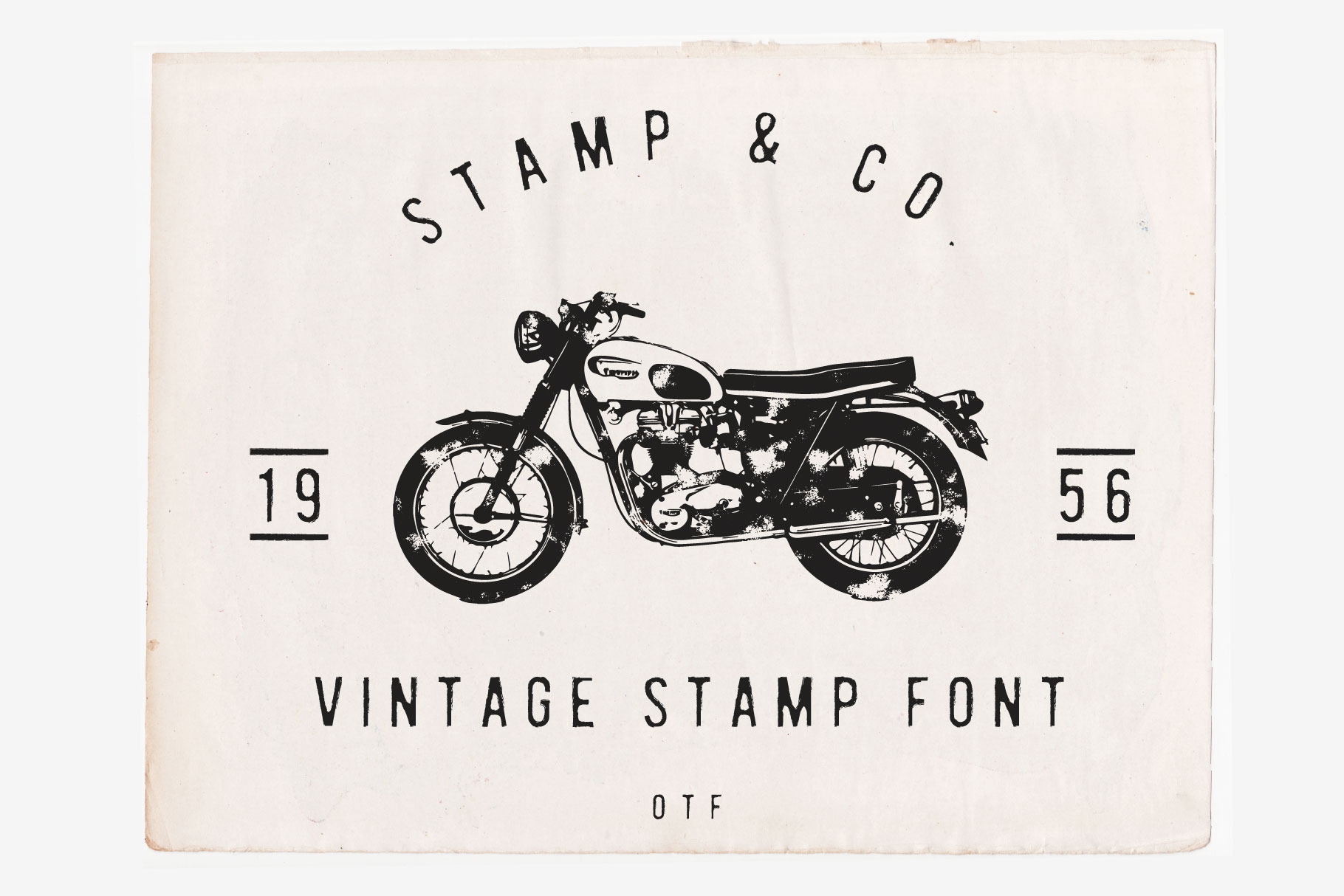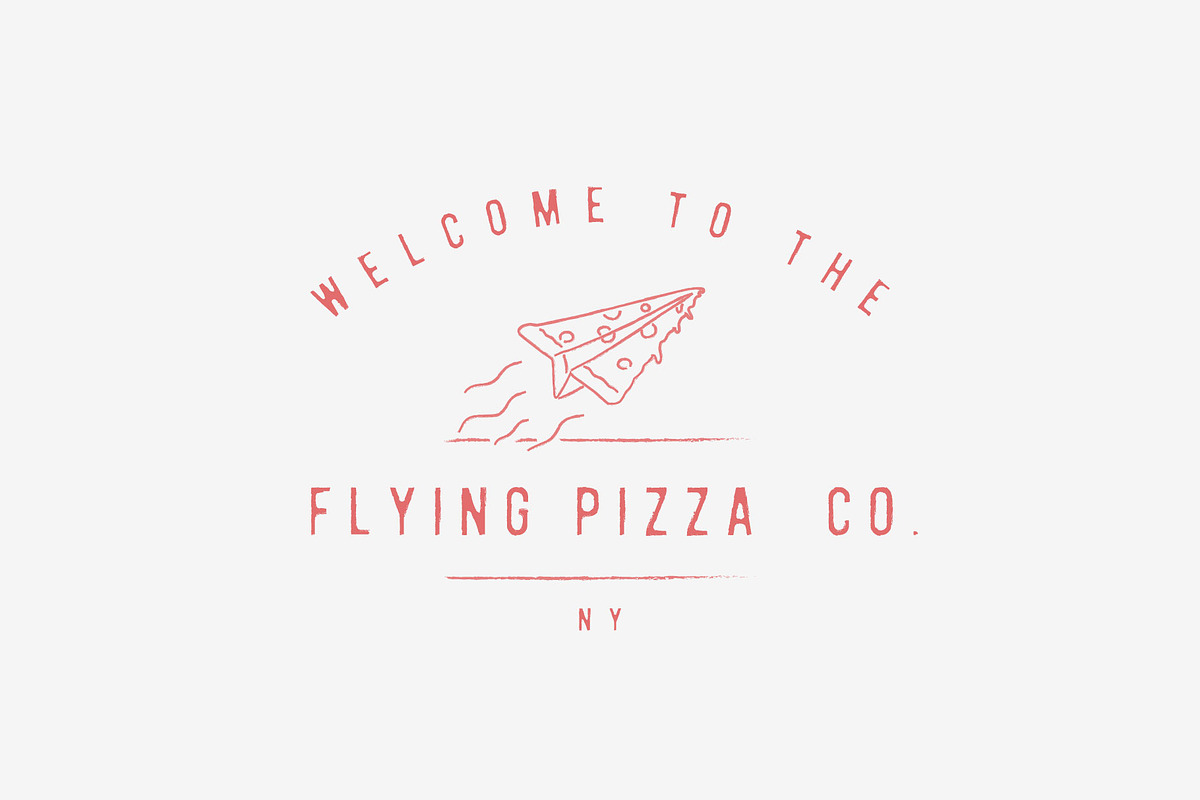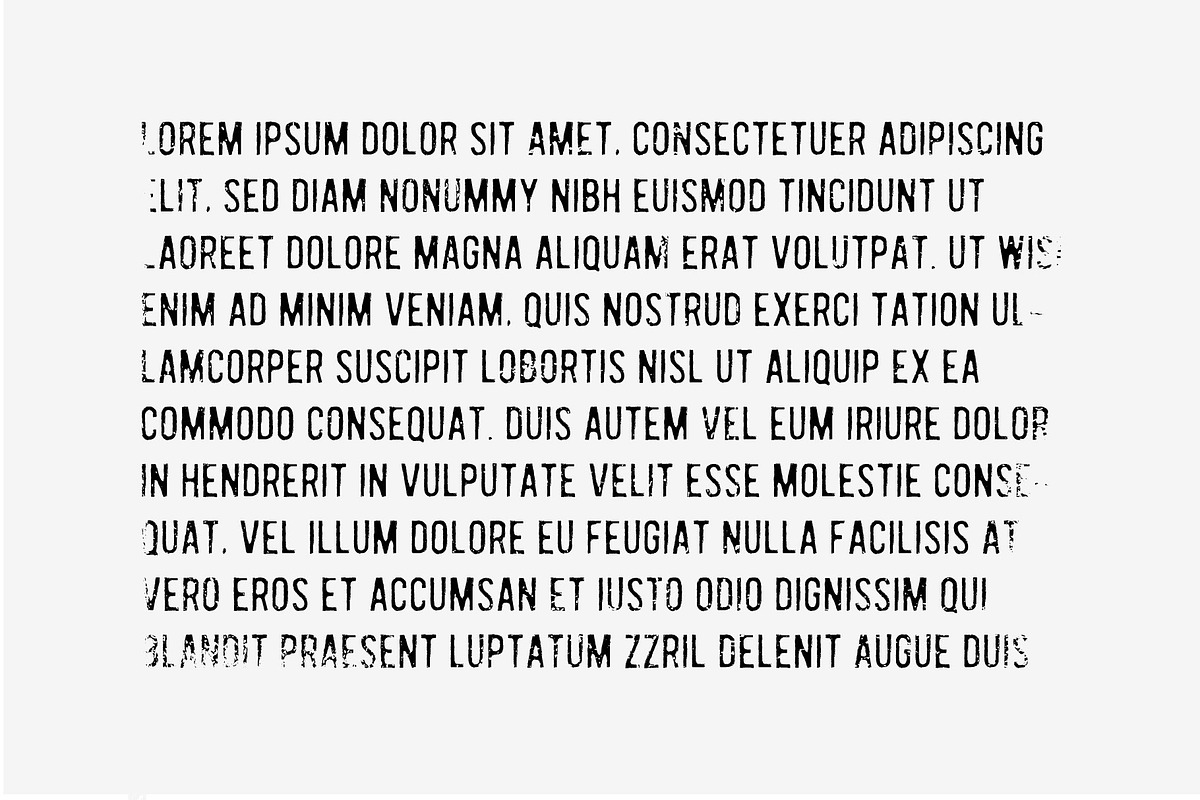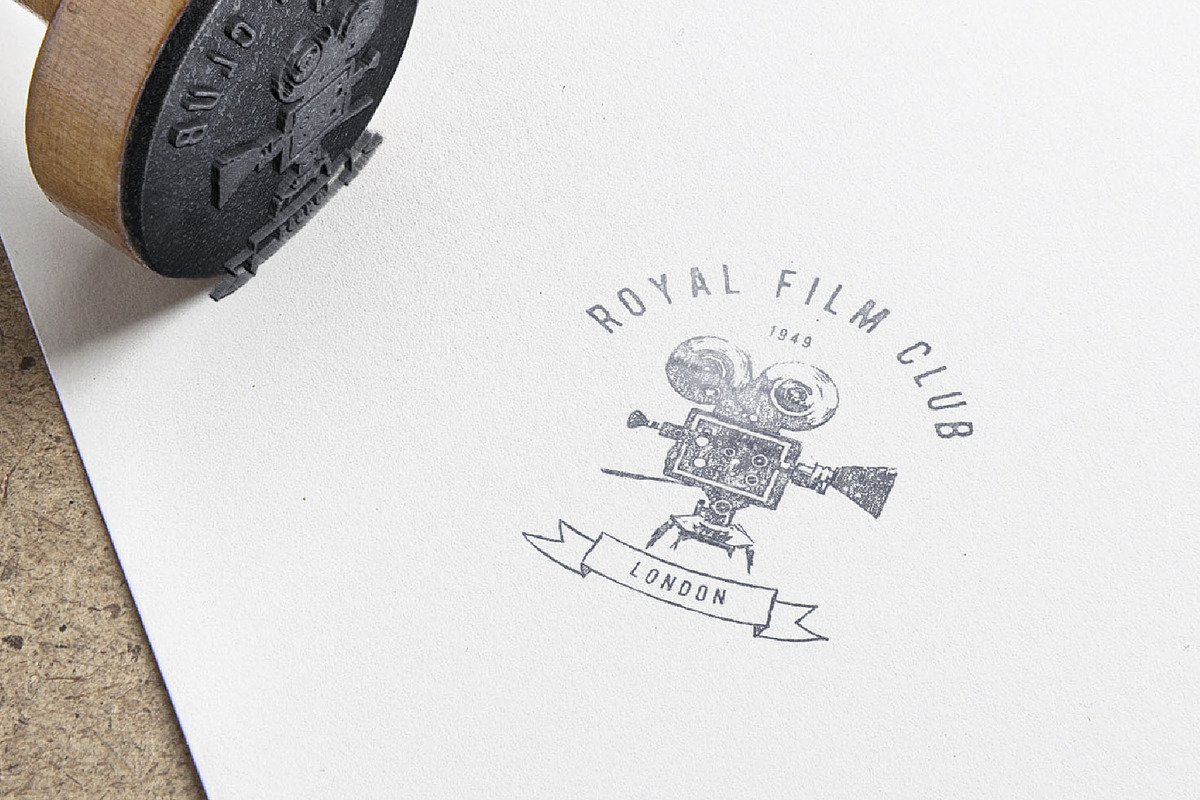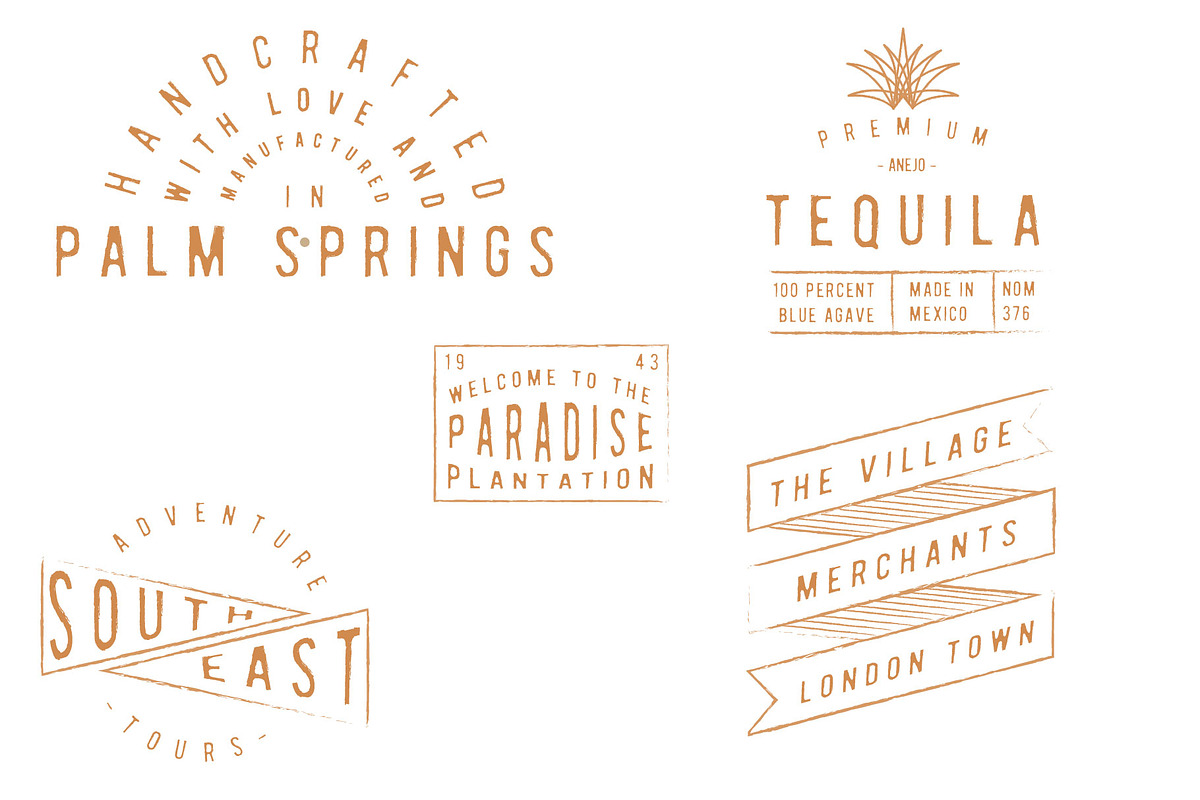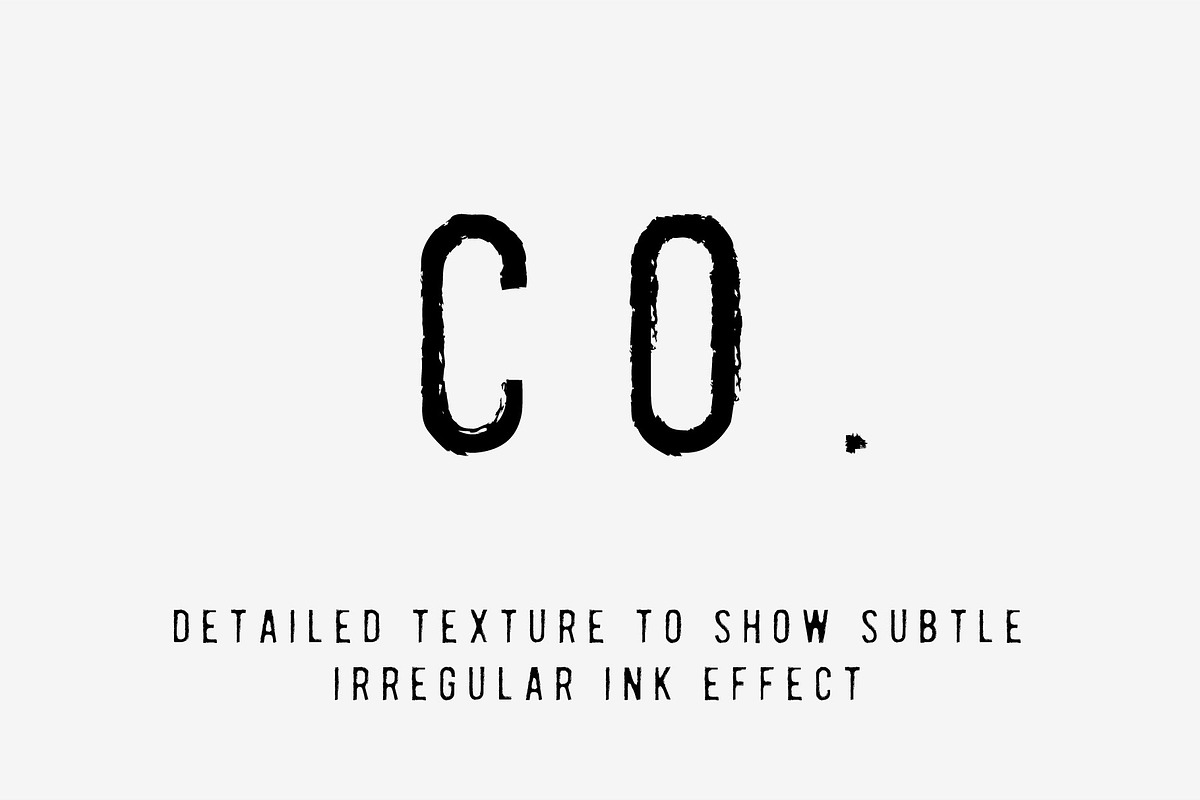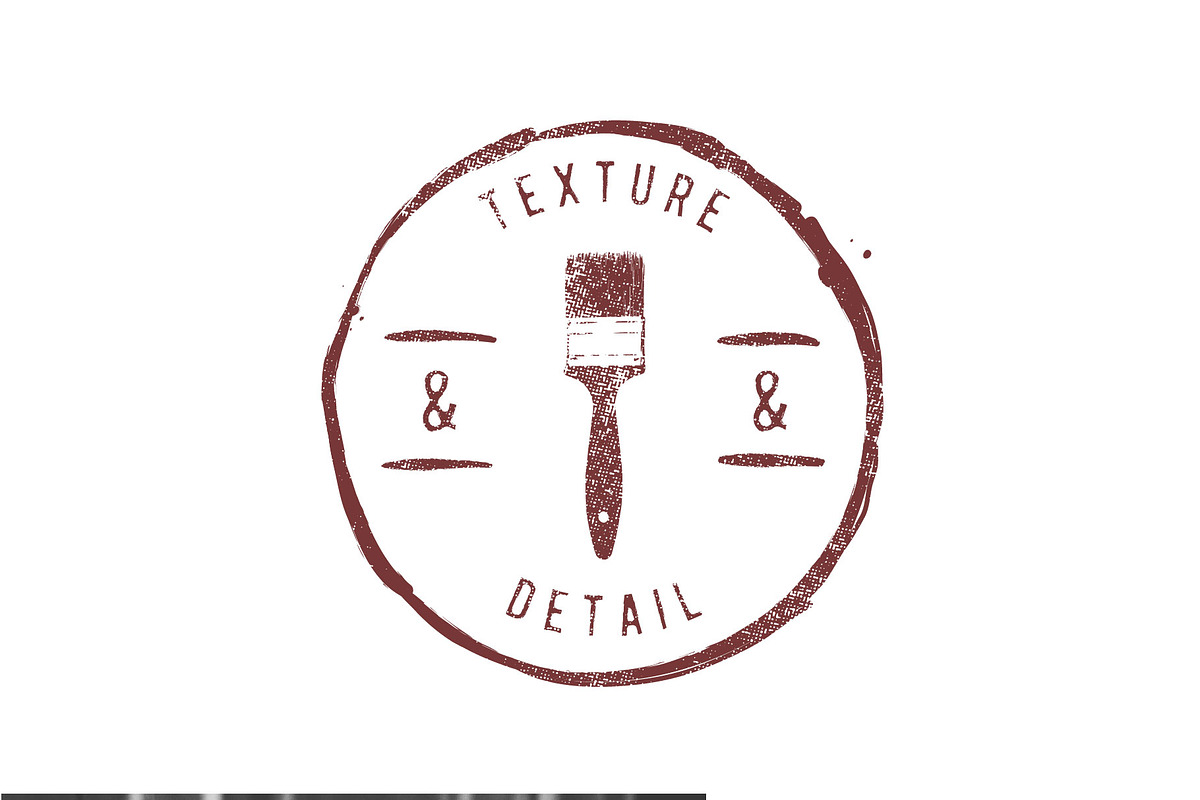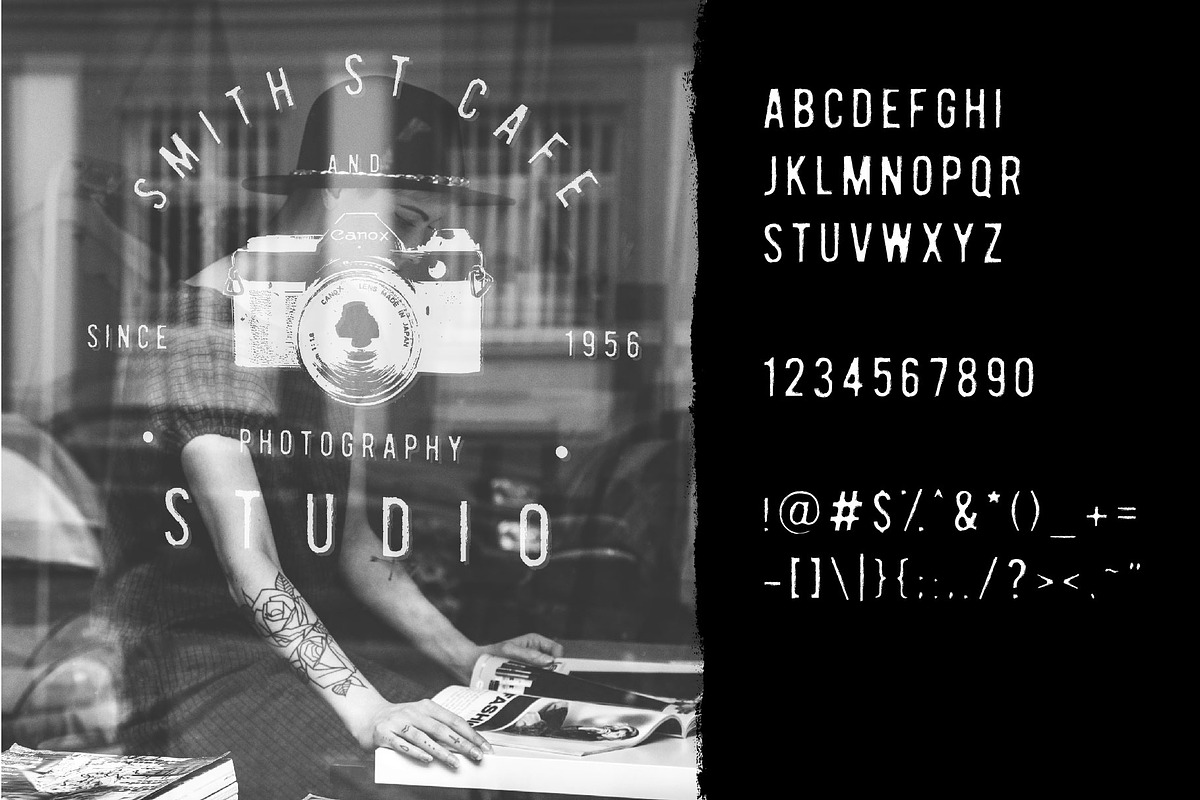
Stamp & Co - Vintage Stamp Font
I was in Sri Lanka on the old english rail system when I got a $2 "fine" for my luggage (surfboard) being too big for the luggage space. The ticket hadn't changed since the 1950s and still used an old stamp with an official rail font. The fact that the stamp was so old gave the text a perfect subtle irregular border. This font I have made is based on that design. It is clean yet textured, like a stamp that quite didn't get enough ink.
- All caps
- Numbers & punctuation symbols